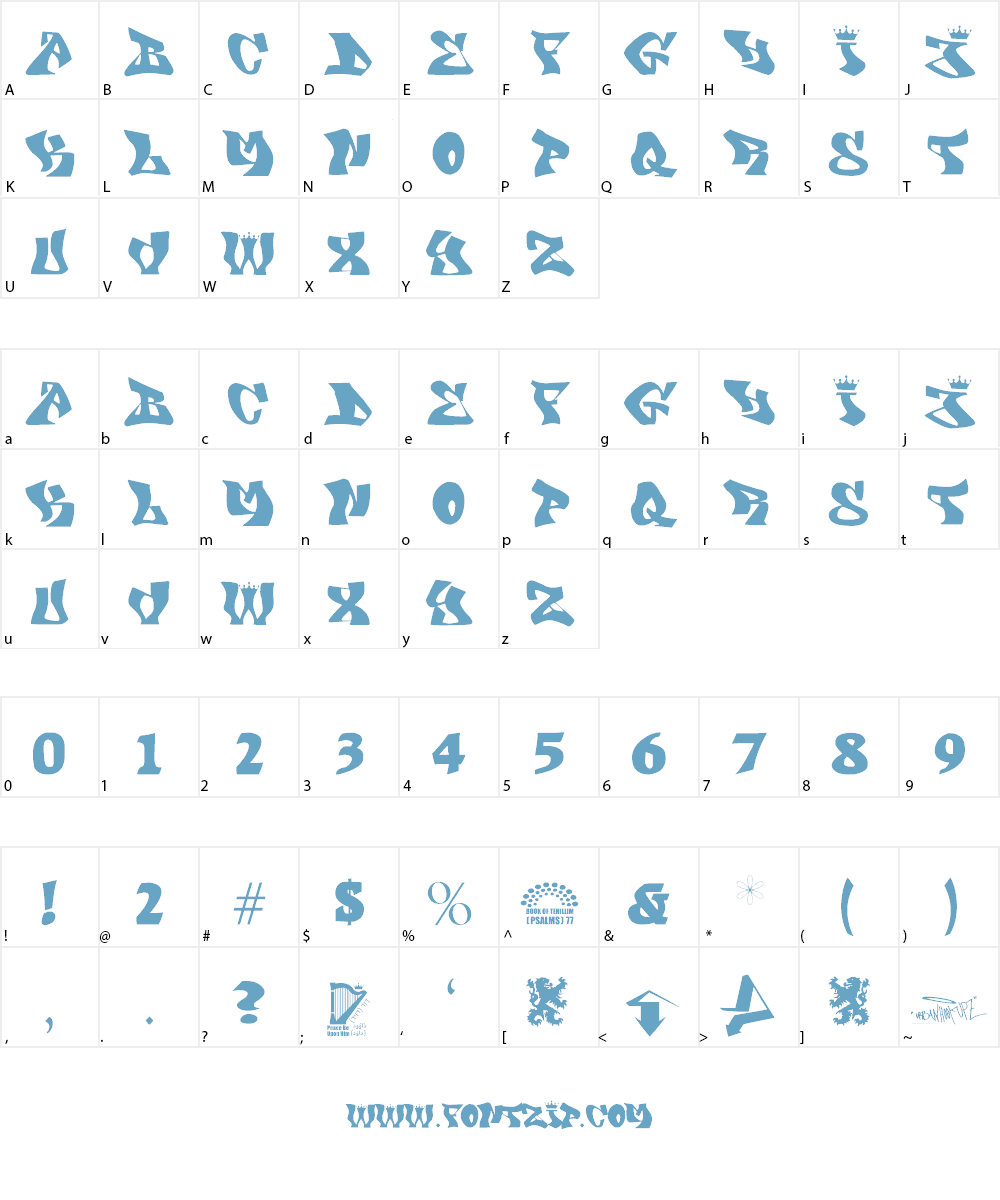
King DAVID GRAFFITI FONT: A new and Fresh graffiti font in memory of the Great father of thousands.
"ALL", True Blue Blood, Hebrew descendants.
KING DAVID FONT by artist, Anwar Ibrahim.